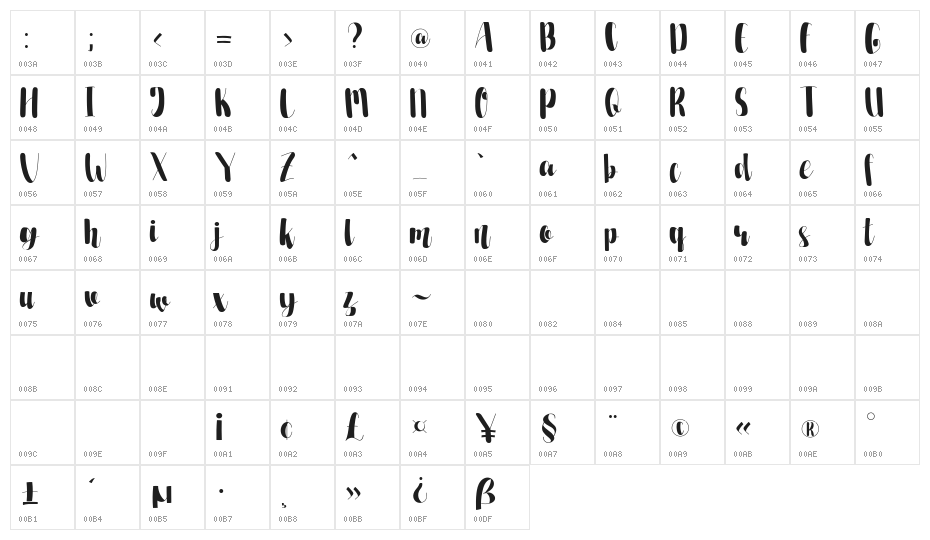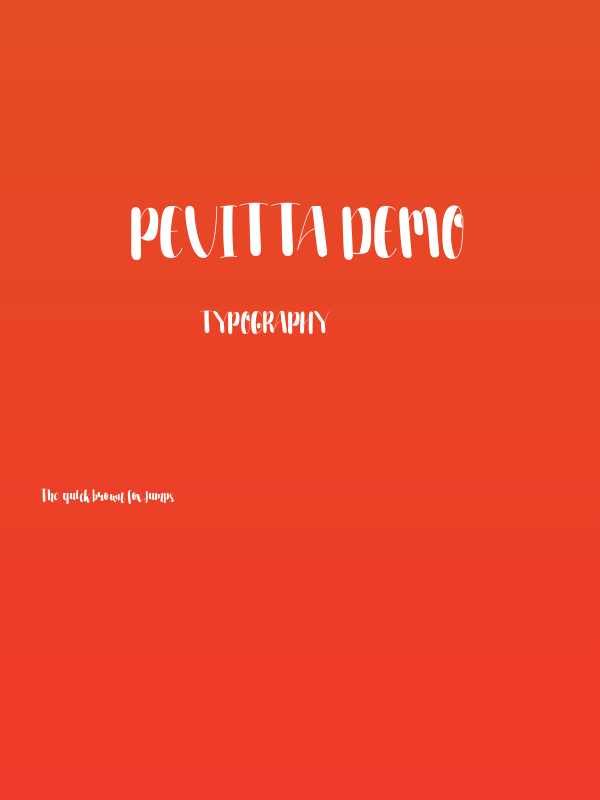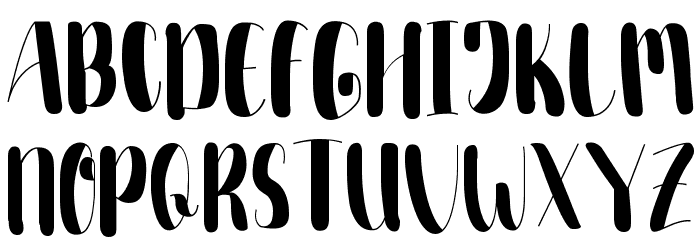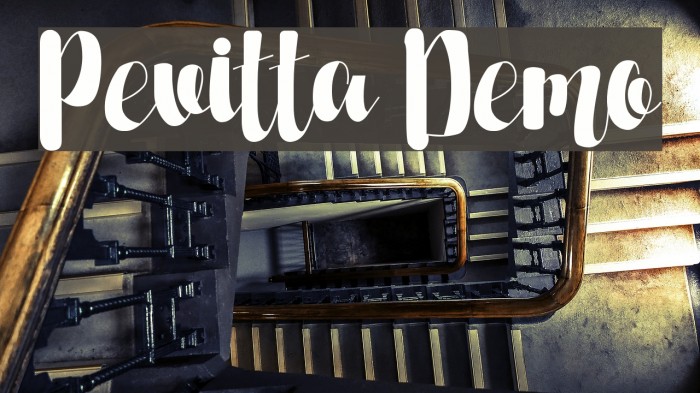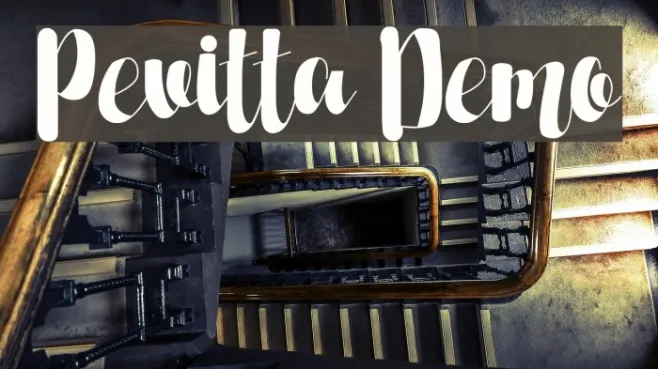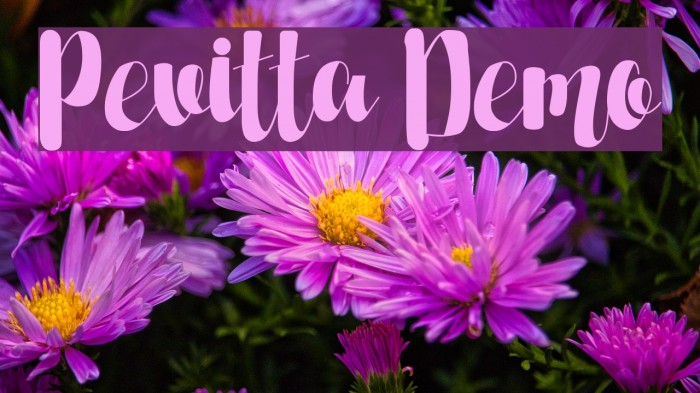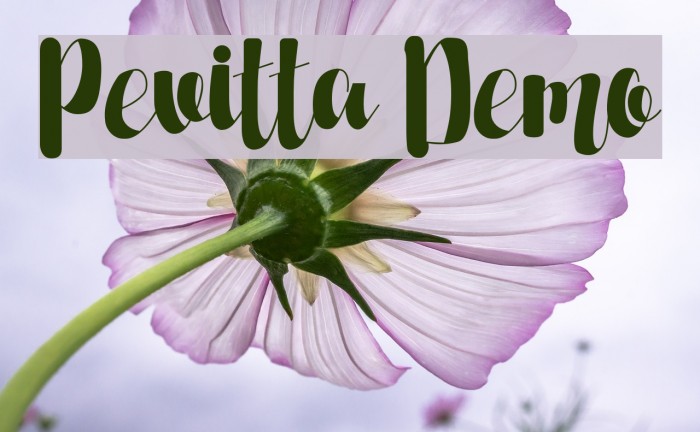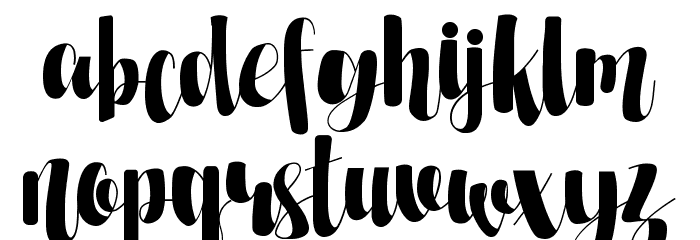
Pevitta Demo Font
Pevitta Demo Description
This font features a bold and expressive script style with a modern flair. The characters are characterized by their thick, flowing strokes and high contrast between thick and thin lines, giving it a dynamic and lively appearance. The uppercase letters are particularly striking, with exaggerated curves and loops that add a sense of movement and elegance. The lowercase letters maintain a cohesive style, with smooth connections and a consistent rhythm. The overall design is playful yet sophisticated, making it suitable for a variety of creative applications. The font's unique style is perfect for projects that require a touch of personality and flair.